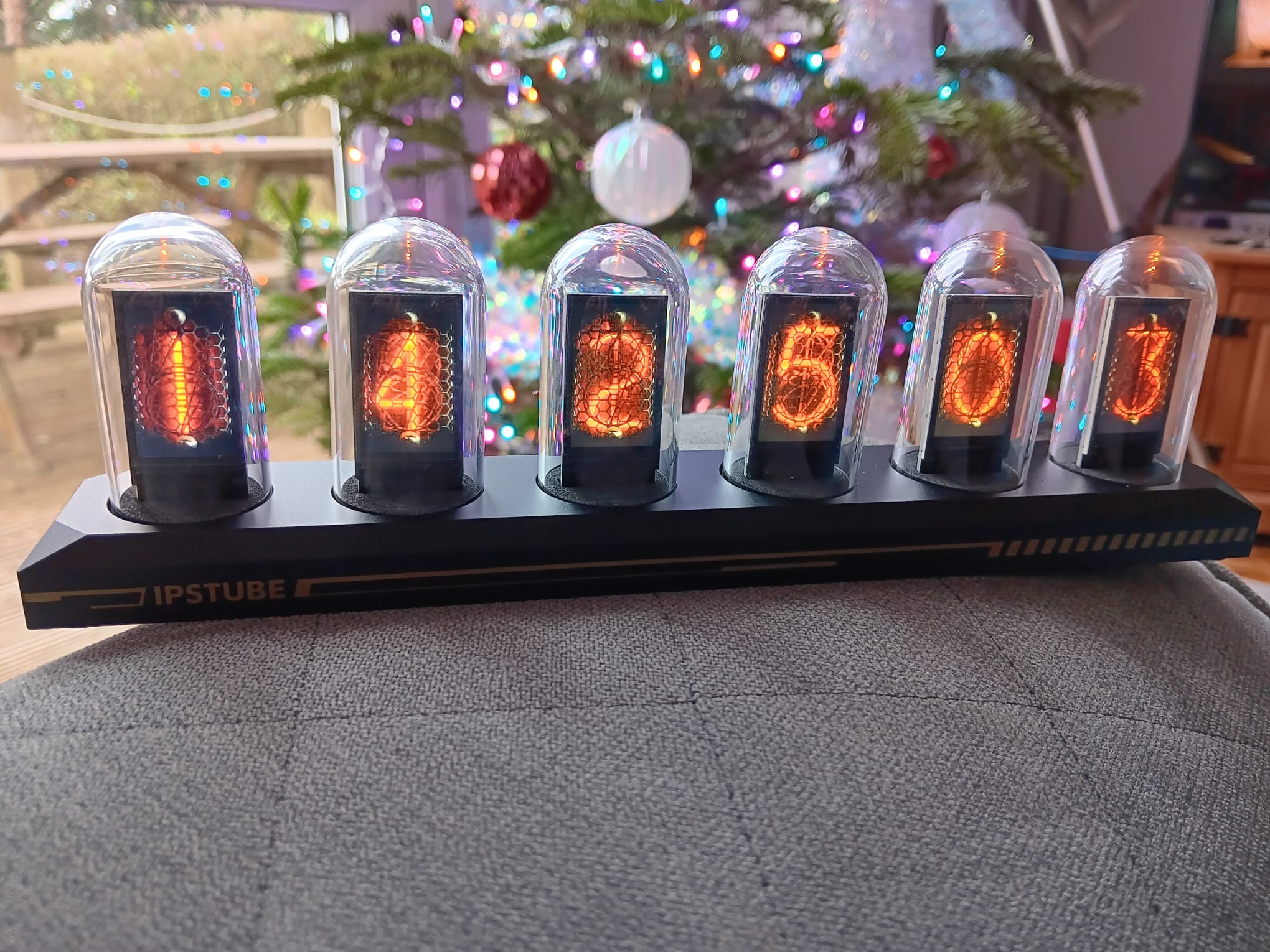
I can’t find a font where the five looks like and upside down two. This Russian style nixie tube clock on my desk has numbers like that.
You mean like the font i used im BLZ-89 Nuclear Nixie? I apologise for not giving a link- I’m on my mobile
It’s called Bazaronite ![]()
Check this one, maybe it can be converted to .ttf, there are online tools for that.
A useful font, but not quite what I was after.
This clock shows the 2 and 5 thing. I’ve been looking for a font, without tubes just the numbers, that looks like this.
A couple of decent choices out there but none have this feature. Ended up using one of those on the Ambient screen for this one
My mistake. I seem to have given up and went with a seven segment display instead.
This may be what you are looking for. I haven’t downloaded it so I don’t know if the font needs converting or not
Yep, this is what I was after. No trouble making .ttf files for the one I wanted.
I’m already working on one too…mote for fun and personal use.
WIP with that font (inspection open):
Here the resources to the watch face above with round nixie style:
Background numbers (tinted in the above face):
Grid (tinted as well):
Light for glow effect:
Bubble glas: